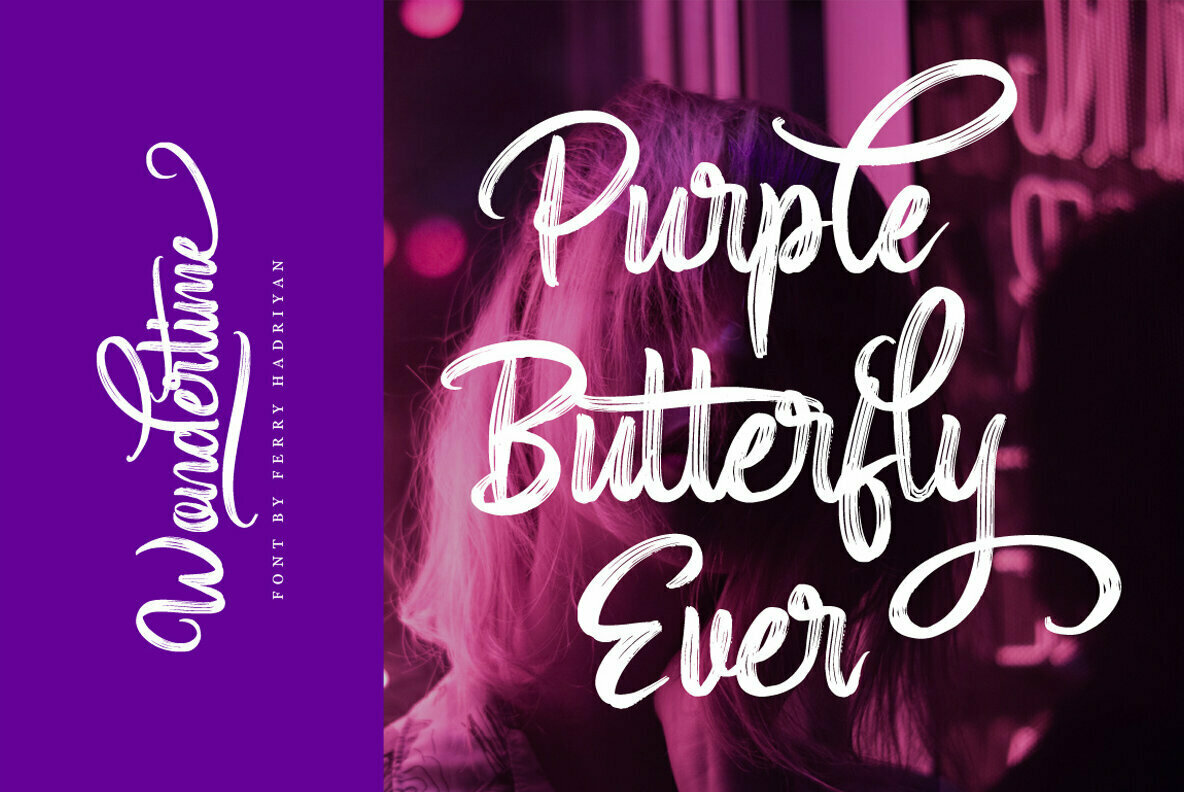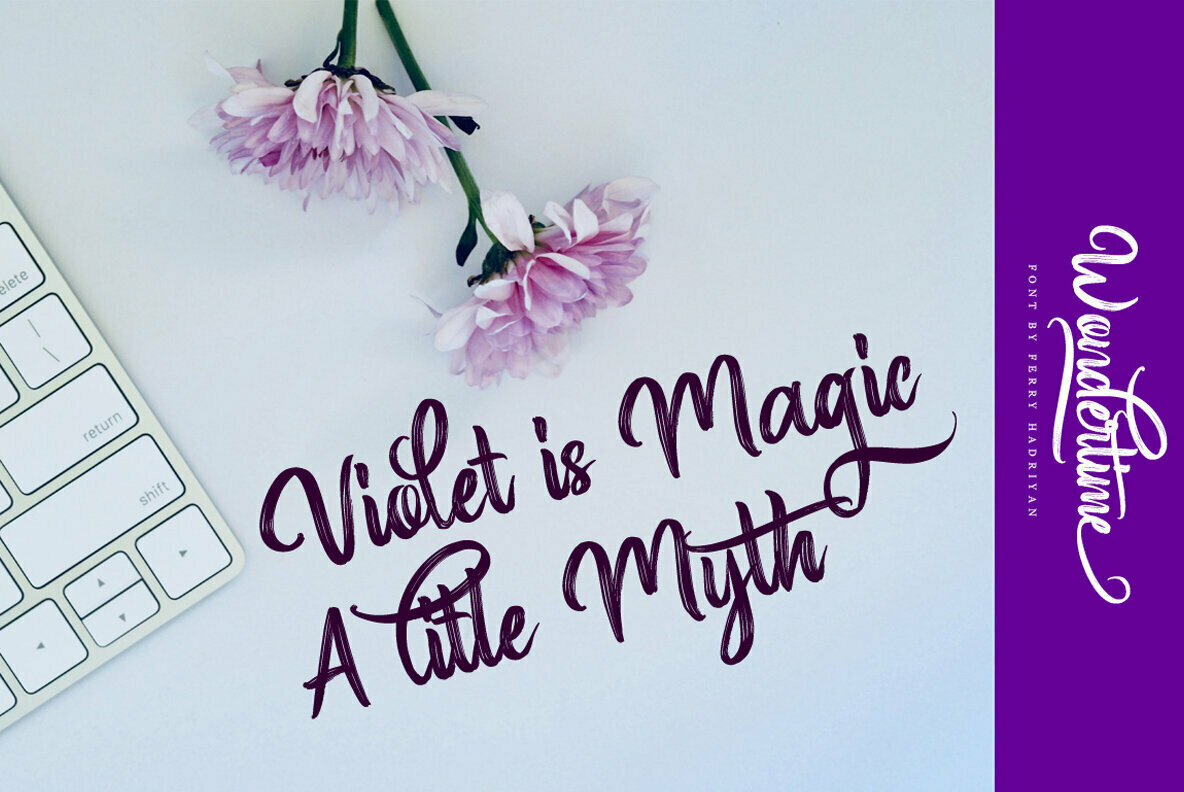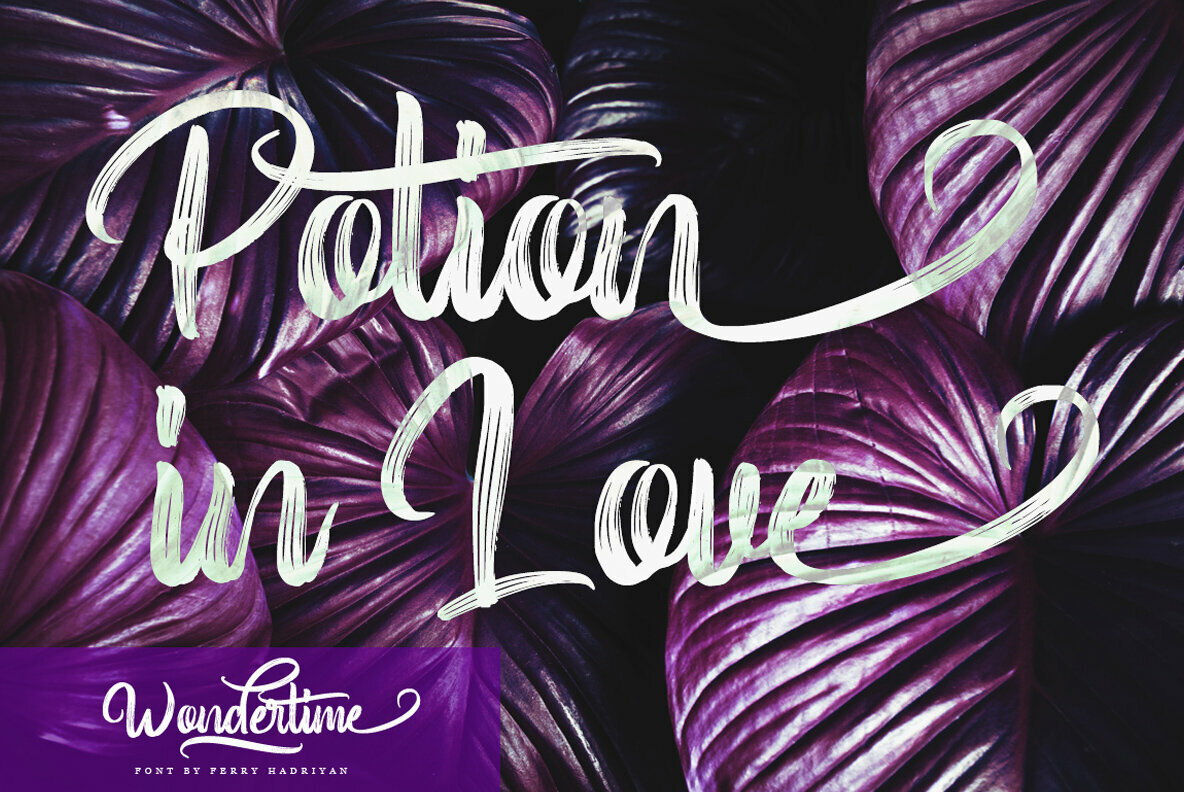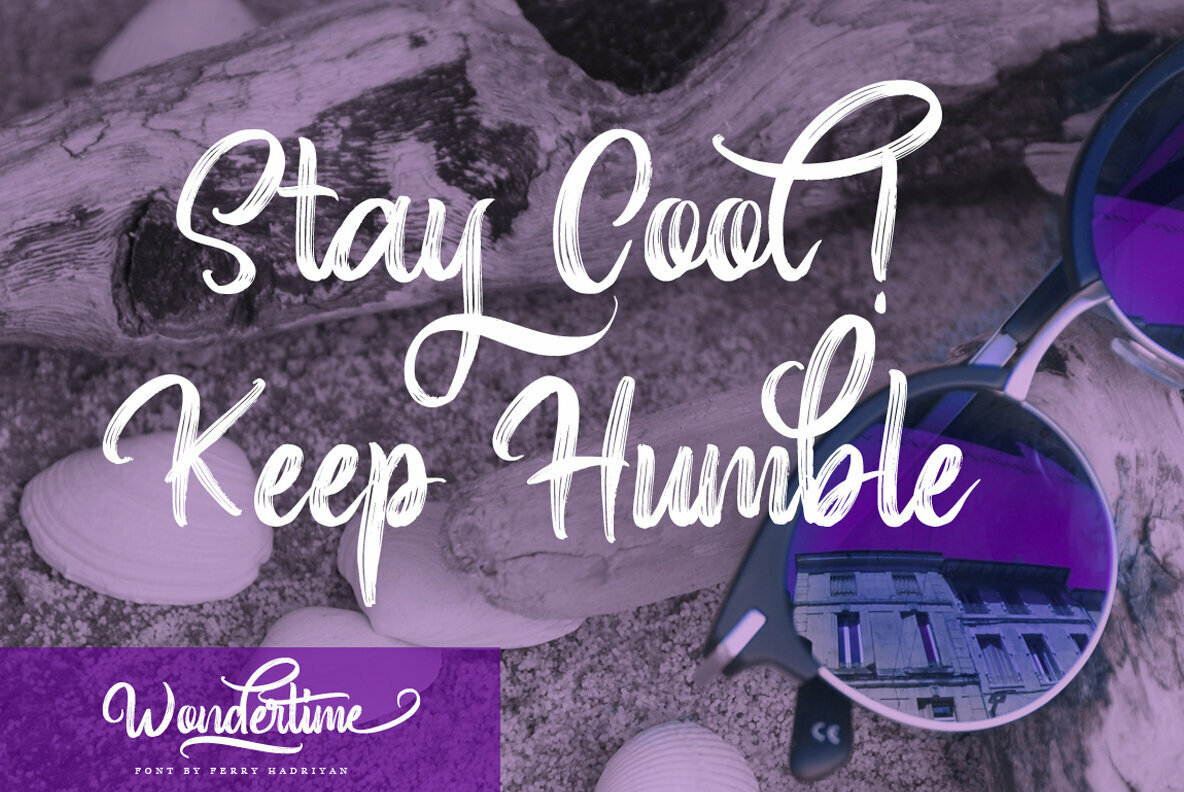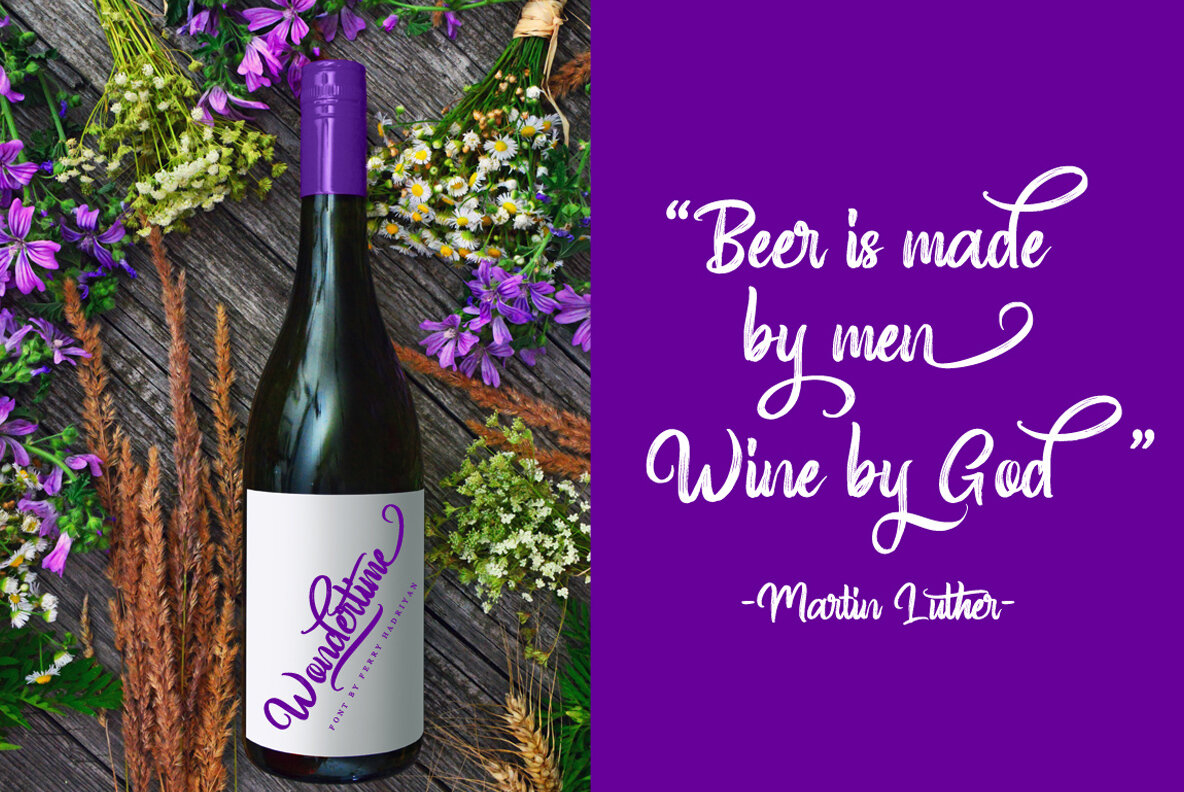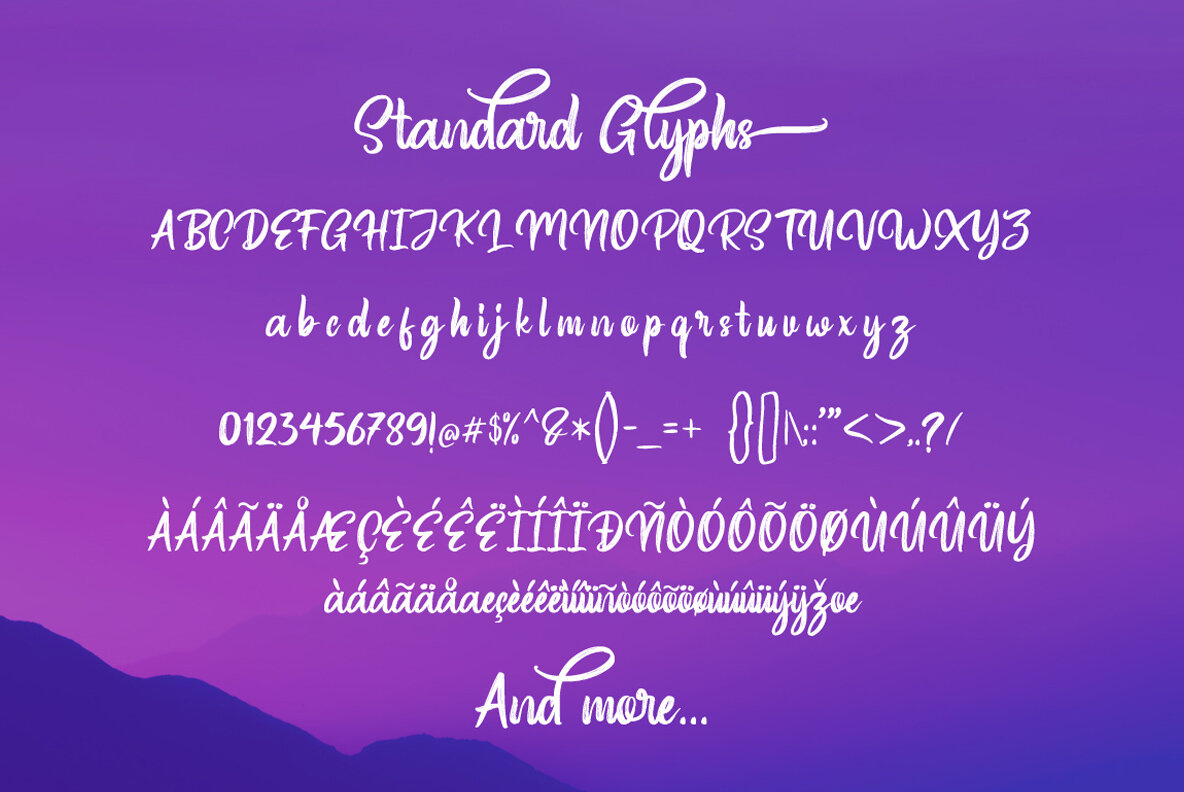
Wondertime Font
Celebrate the elegance of Wondertime, a signature-style handwritten script font. Its graceful character makes it an ideal choice for bringing warmth and a personal touch to design projects. Whether you're crafting a wedding invitation, designing a logo, or adding a special flourish to merchandise like t-shirts and badges, Wondertime offers unmatched versatility for expressing creativity.Wondertime: Authentic Handwritten Script